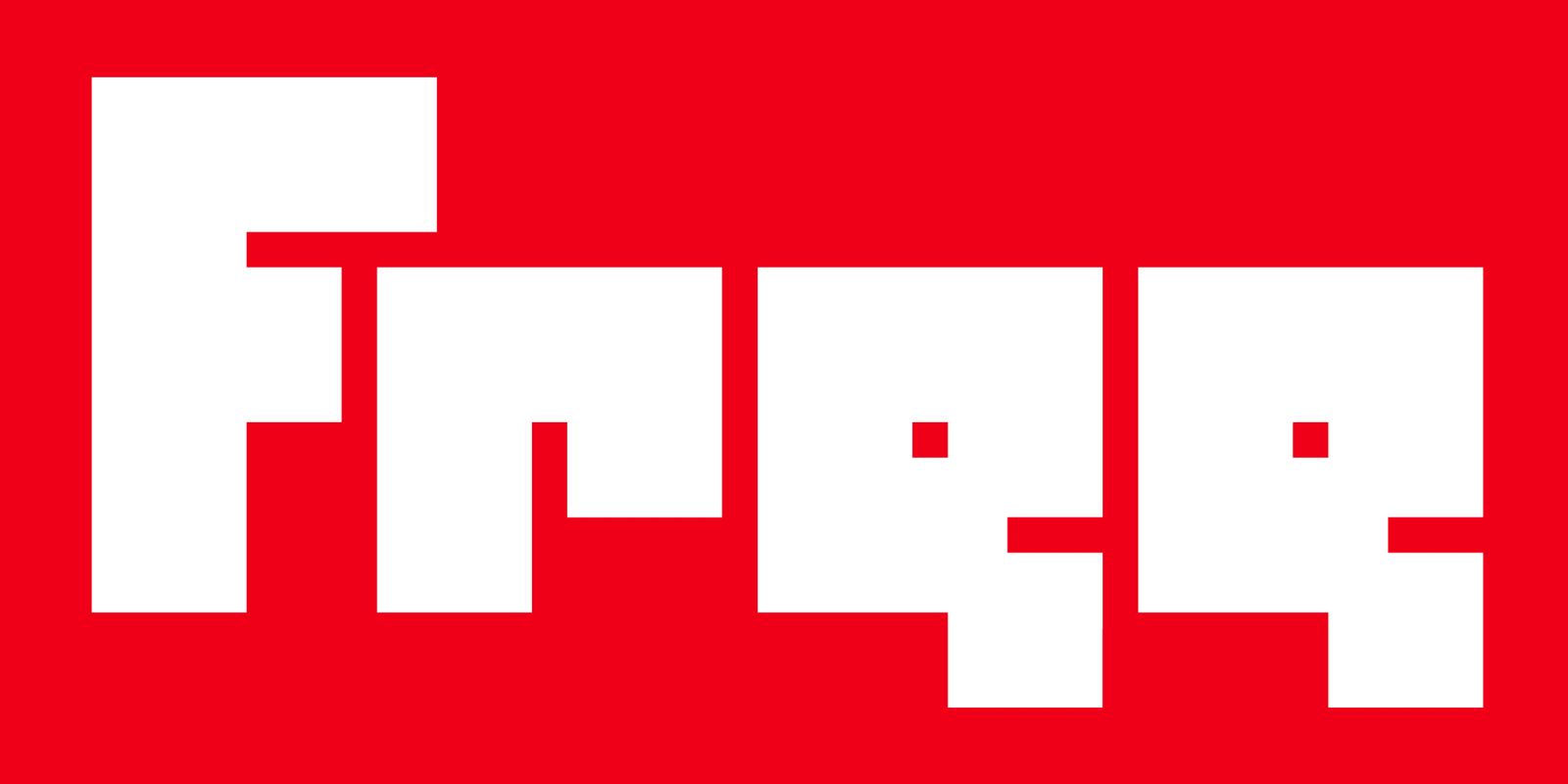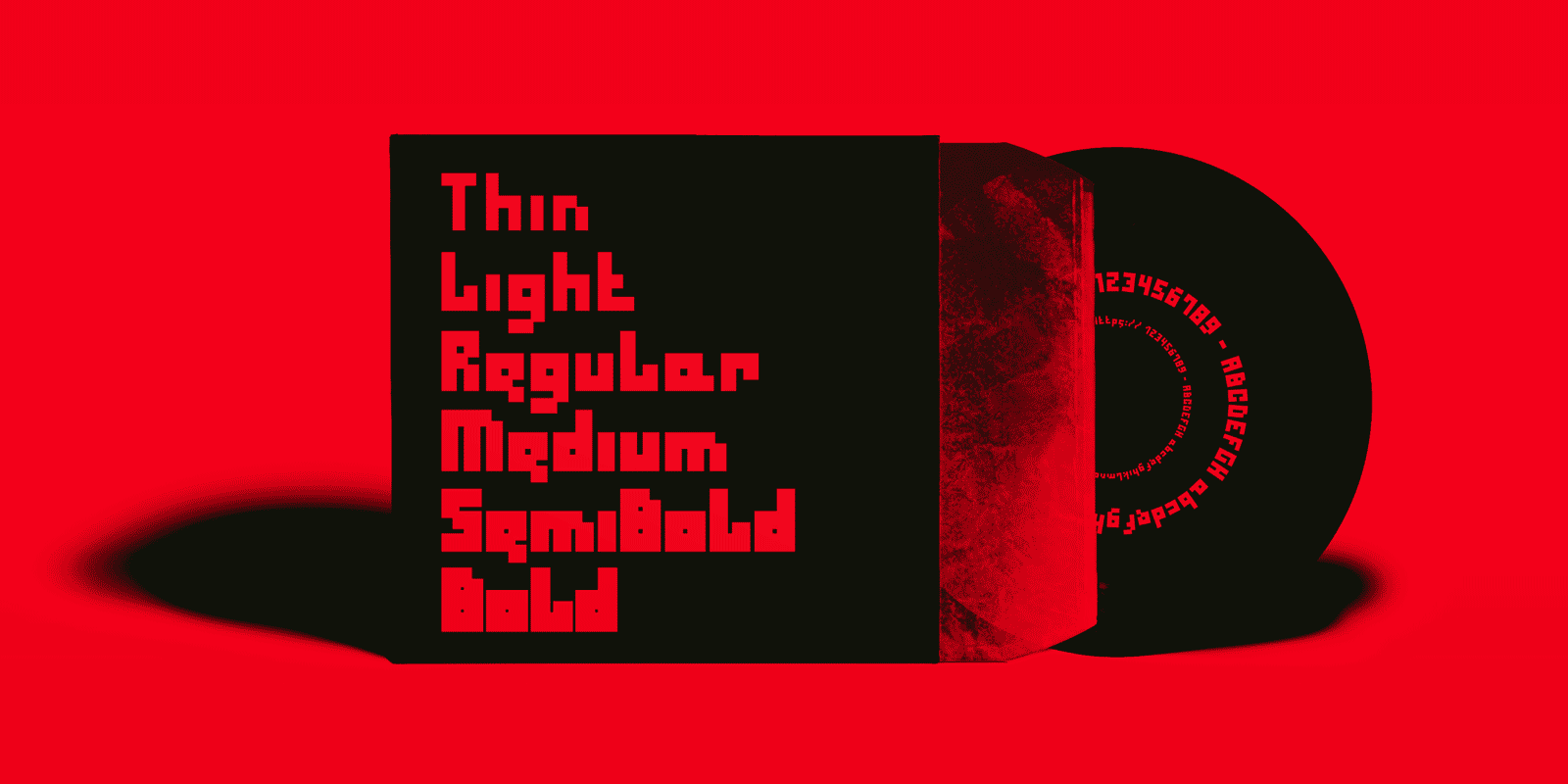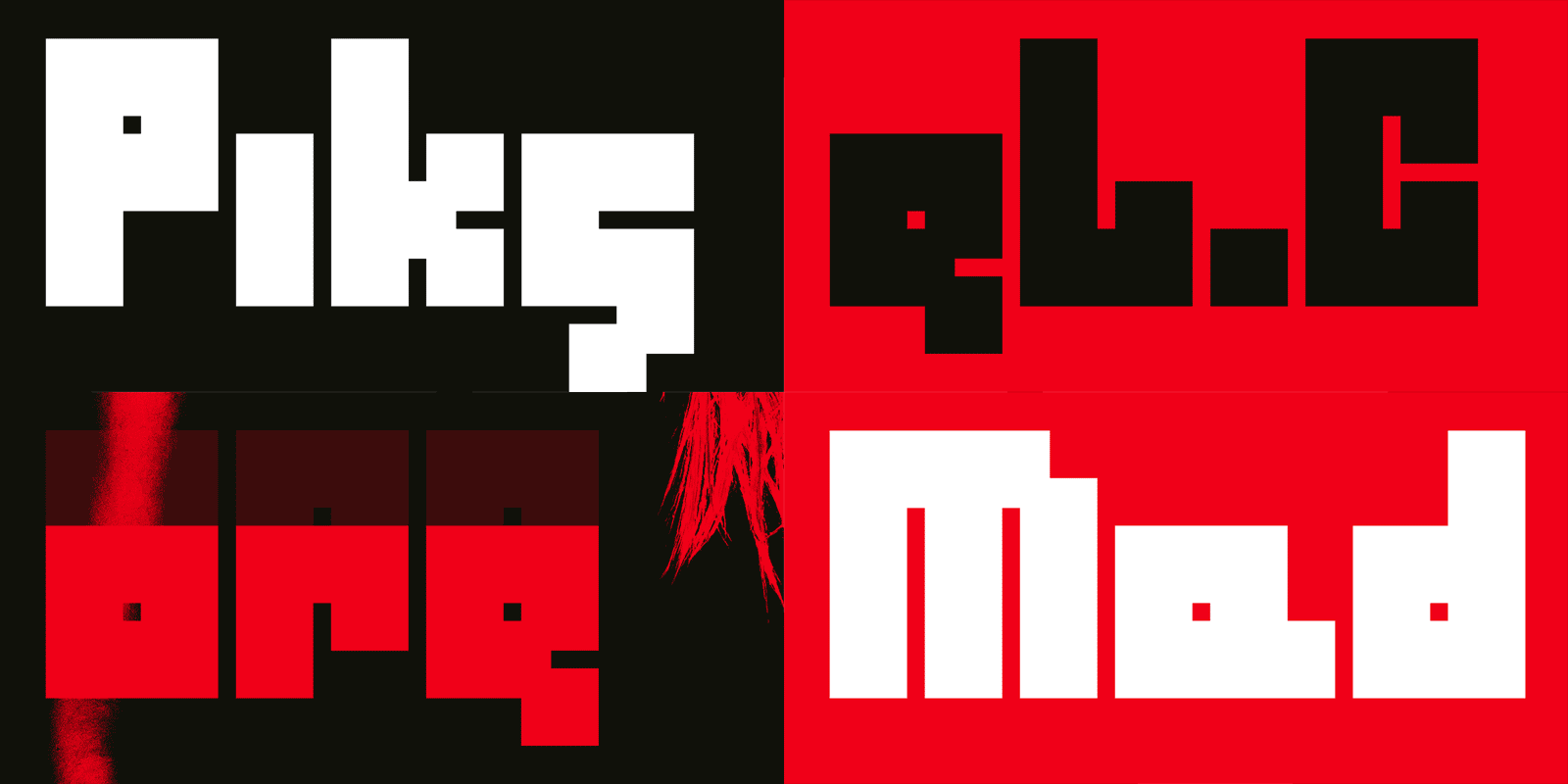
Red and black presentation layout showing contemporary experimental typography and clean pixelated font weights.
Bold white text reading Free on red background showcasing a sharp geometric sans serif pixel typeface.
Piksel Core Mad is an experimental pixel typeface designed on a strict square grid — with no curves, no diagonals, and no apologies.
Every character is modular and sharp, but with deliberate glitches and visual tension.
It includes both uppercase and lowercase letters — a rare feature in pixel fonts.
Each of the six weights (from 200 to 700) embraces distortion and contrast while staying true to pixel logic.
Typography specimen mockup displaying six weights of an experimental low-res bitmap font on a minimalist grid layout.